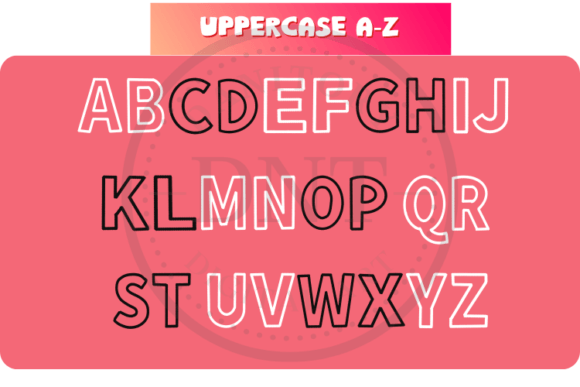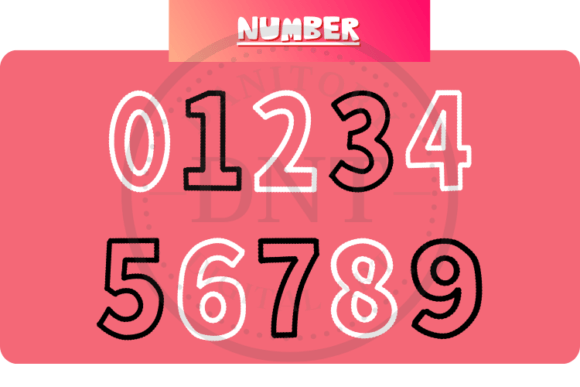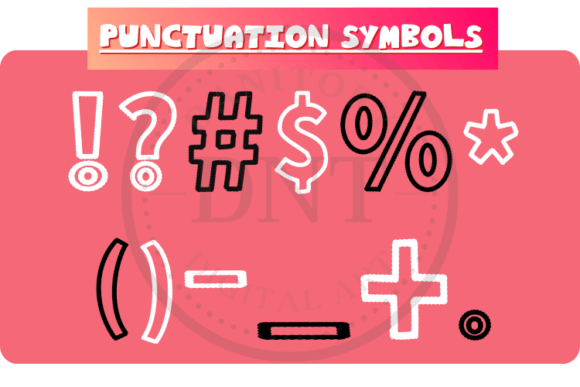
Introducing Core Font: The Perfect Addition to Your Design Arsenal
Are you tired of using the same old fonts in your designs? Look no further than Core Font, a cute and versatile display font that’s sure to elevate your creative projects. With its simple and natural aesthetic, Core Font boasts a beautiful and well-balanced character that fits seamlessly into a variety of designs.
What Makes Core Font So Special?
Core Font’s unique charm lies in its understated elegance. Its clean lines and effortless curves make it an excellent choice for designers and crafters looking to add a touch of sophistication to their work. Whether you’re creating t-shirt designs, posters, or any other visual project, Core Font is the perfect companion to help you bring your ideas to life.
Key Features of Core Font
- Simple and Natural Aesthetic: Core Font’s minimalist design makes it easy to read and understand, while its natural curves add a touch of warmth and personality.
- Beautiful and Well-Balanced Character: Each character in Core Font is carefully crafted to ensure that the font looks great in any context, from large headings to smaller text.
- Versatile: Core Font’s adaptability makes it suitable for a wide range of design projects, from playful t-shirt designs to more formal posters and brochures.
How to Use Core Font in Your Design Projects
The possibilities are endless when it comes to using Core Font in your designs. Here are a few ideas to get you started:
- T-Shirt Designs: Add a playful touch to your t-shirt designs with Core Font. Its cute and quirky vibe makes it perfect for creating fun and eye-catching graphics.
- Posters: Use Core Font to create bold and attention-grabbing posters for events, promotions, or announcements.
- Branding and Packaging: Core Font’s elegant design makes it an excellent choice for branding and packaging projects, such as logos, labels, and business cards.
Tips for Getting the Most Out of Core Font
To make the most of Core Font, here are a few tips to keep in mind:
- Experiment with Different Sizes: Core Font looks great in a variety of sizes, from large headings to smaller text. Experiment with different sizes to find the perfect fit for your design.
- Pair with Other Fonts: Core Font pairs well with a range of other fonts, so don’t be afraid to get creative and try out different combinations.
- Use it Consistently: To create a cohesive look, use Core Font consistently throughout your design project.
In conclusion, Core Font is a versatile and charming display font that’s perfect for designers and crafters looking to add a touch of elegance to their work. With its simple and natural aesthetic, beautiful and well-balanced character, and adaptability, Core Font is sure to become a staple in your design arsenal. So why wait? Download Core Font today and get creative with your design projects!
Whether you’re a seasoned designer or just starting out, Core Font is an excellent addition to your font library. Its unique charm and versatility make it an excellent choice for a wide range of design projects. So go ahead, get creative, and see what amazing designs you can create with Core Font!